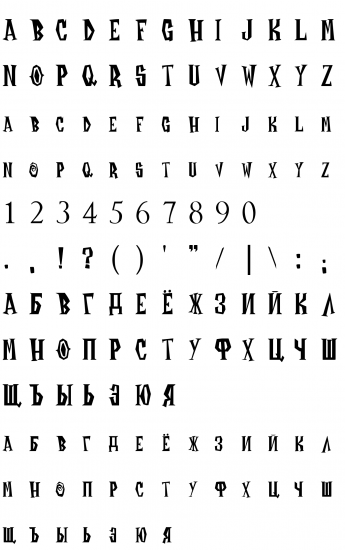
Deerclops Mika Posted July 22, 2019 Share Posted July 22, 2019 A couple of people from Russia made a full font of letters from the pictures don't starve the characters. This font includes letters, English letters and Russian letters. They called it BigDonstarve Font. https://www.fonts-online.ru/font/BigDonstarve Here is the author, but I don't think that this will give you something... https://vk.com/wall-42801871_413259 Spoiler Link to comment https://forums.kleientertainment.com/forums/topic/109231-bigdonstarve-font/ Share on other sites More sharing options...
Russian_Philin Posted July 23, 2019 Share Posted July 23, 2019 5 hours ago, minespatch said: @Russian Philin I've seen it before, bud, but thanks for letting me know 9 hours ago, Deerclops Mika said: Here is the author, but I don't think that this will give you something You first showed it in the VK, has now decided on the forums to show. Good idea. Link to comment https://forums.kleientertainment.com/forums/topic/109231-bigdonstarve-font/#findComment-1230269 Share on other sites More sharing options...
Canis Posted July 23, 2019 Share Posted July 23, 2019 It's a shame that we get barely any numbers. I remember looking for days when making the SCP-049 mod. Speaking of which, I desperately need to finish that DST port... Eh... Link to comment https://forums.kleientertainment.com/forums/topic/109231-bigdonstarve-font/#findComment-1230278 Share on other sites More sharing options...
Mobbstar Posted July 23, 2019 Share Posted July 23, 2019 Cyrillic! Very cool! Link to comment https://forums.kleientertainment.com/forums/topic/109231-bigdonstarve-font/#findComment-1230286 Share on other sites More sharing options...
DatShadowJK Posted July 23, 2019 Share Posted July 23, 2019 Theres two actually, that one and this one Link to comment https://forums.kleientertainment.com/forums/topic/109231-bigdonstarve-font/#findComment-1230402 Share on other sites More sharing options...